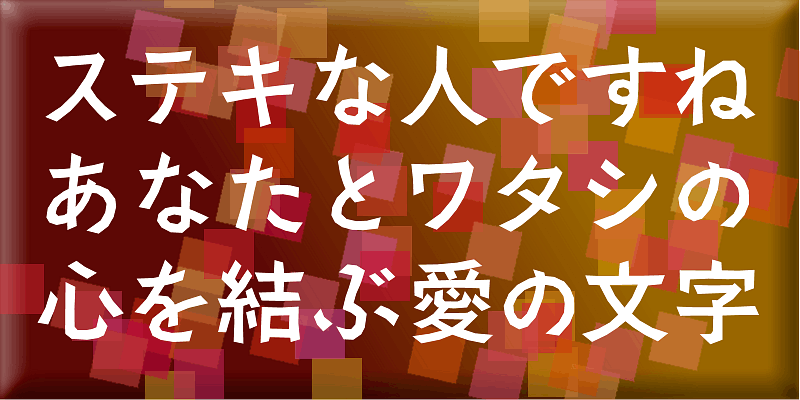
The challenge was to express the rustic flavor of paper-cut art and wood-block print and unique feeling of Japanese lettering by using only straight lines. The resulting typeface should be used in larger type sizes. It can effectively convey childhood memories and nostalgic scenes.
Through typeface designs, we aim to convey a meaning beyond the textual content. Typefaces that allow users to clearly convey their full meaning. Typefaces that both typesetters and readers will enjoy. These are the kind of typefaces that we aim to create.